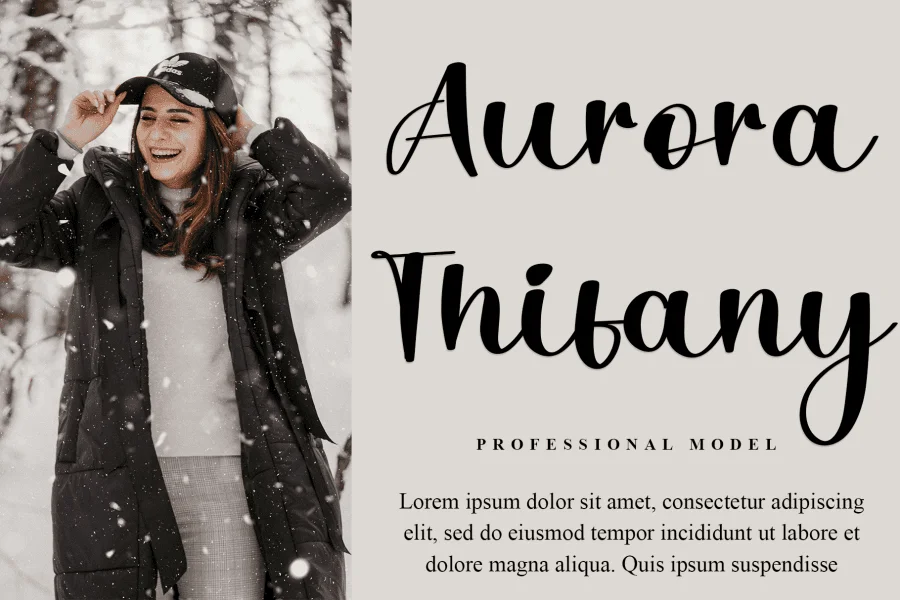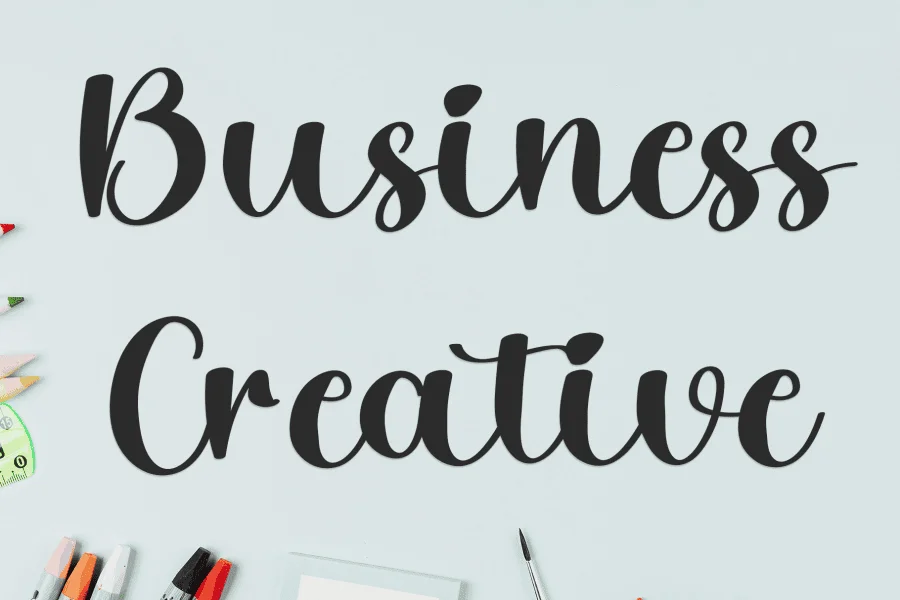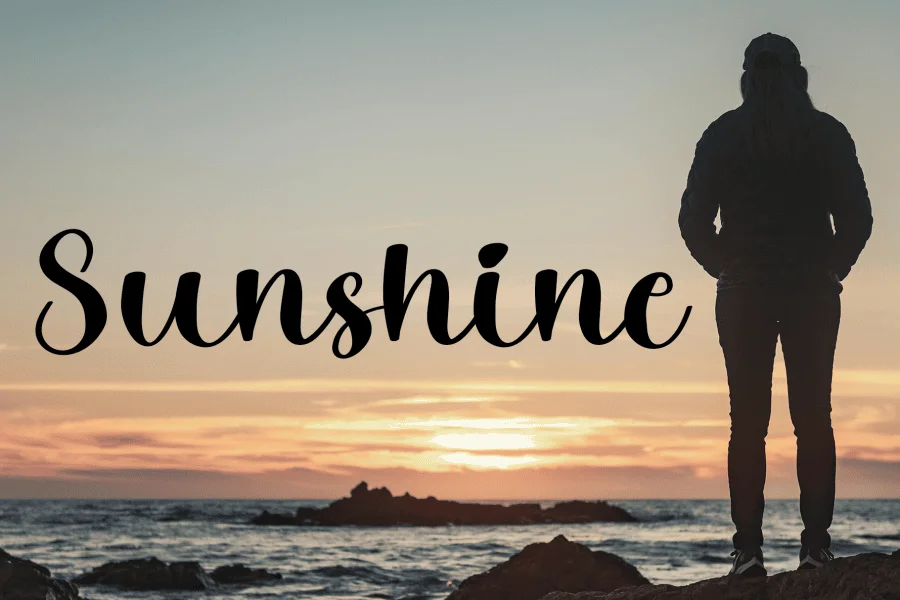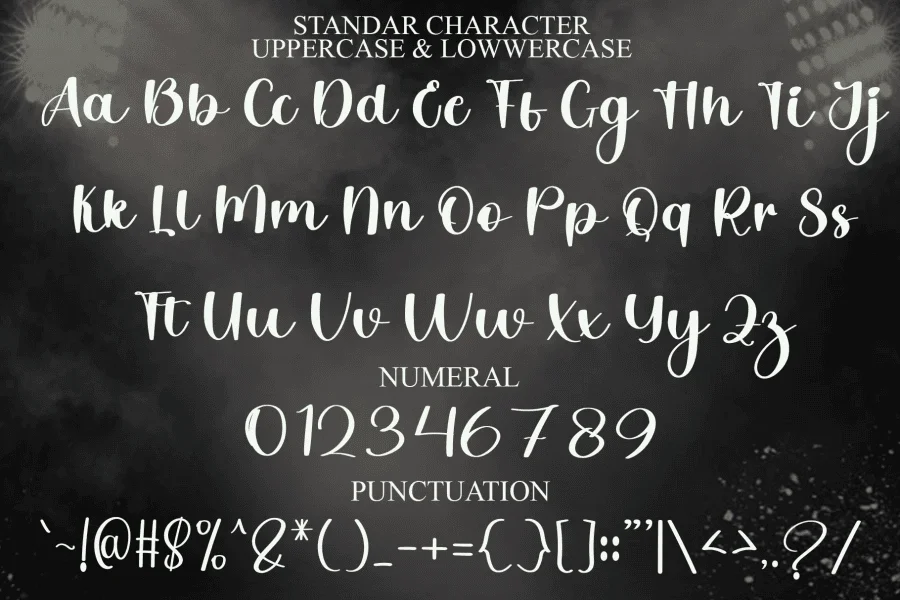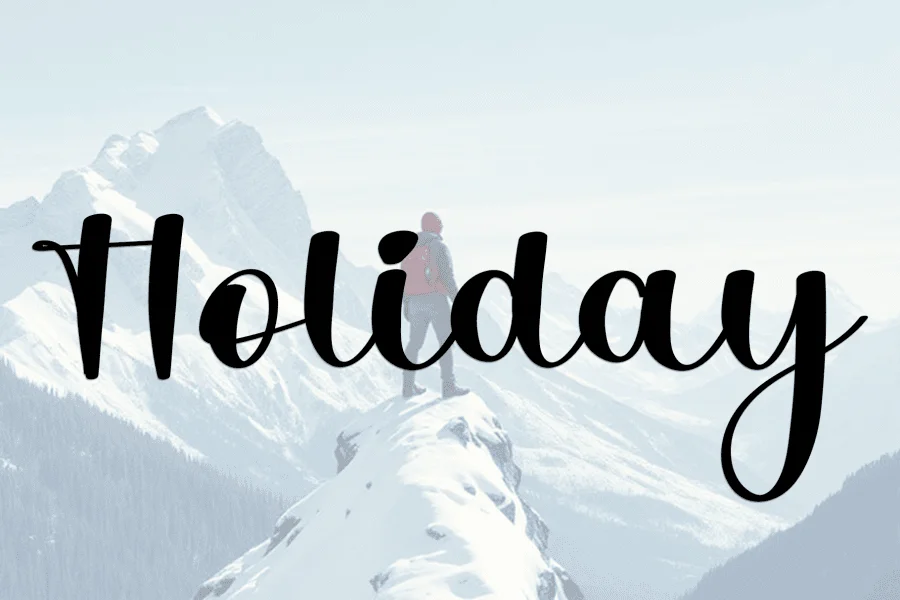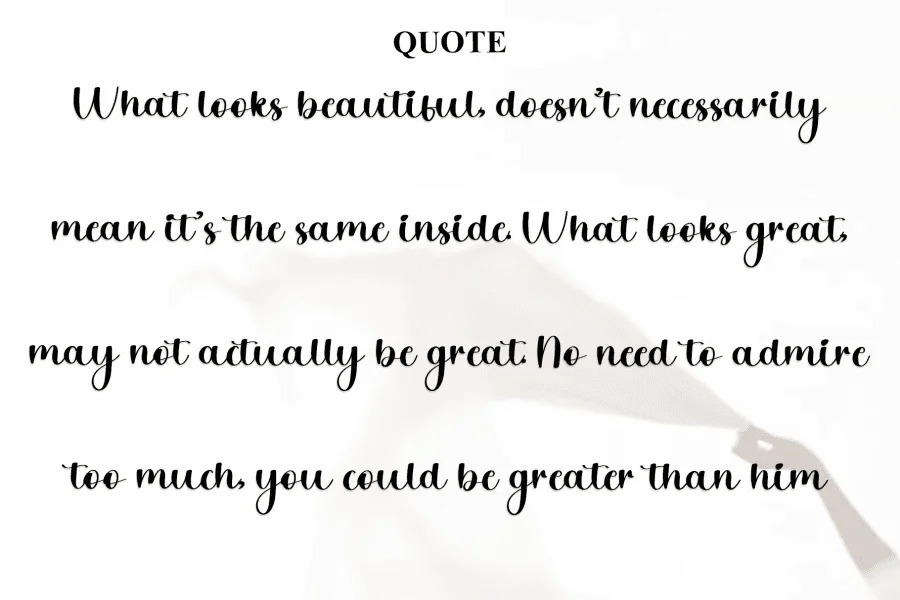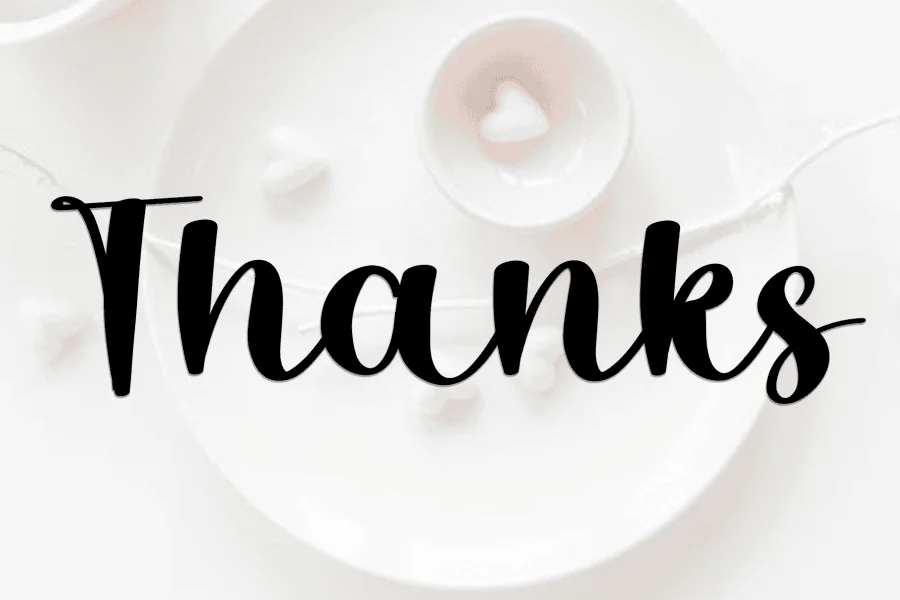
Monalisa Signature is an elegant calligraphy typeface with a warm, hand-drawn aesthetic. It features a rhythmic flow defined by a distinct contrast between thick downstrokes and delicate upstrokes, mimicking the natural variation of a brush pen. The overall construction is upright yet fluid, combining structured vertical stems with playful, sweeping loops and soft, rounded terminals that give the text a friendly, personal texture.
This typeface is well-suited for creative branding projects, lifestyle photography overlays, and editorial designs that require an organic, human touch. Its expressive, signature-like quality makes it ideal for social media graphics, personal blogs, event invitations, and packaging designs for artisanal or boutique products.